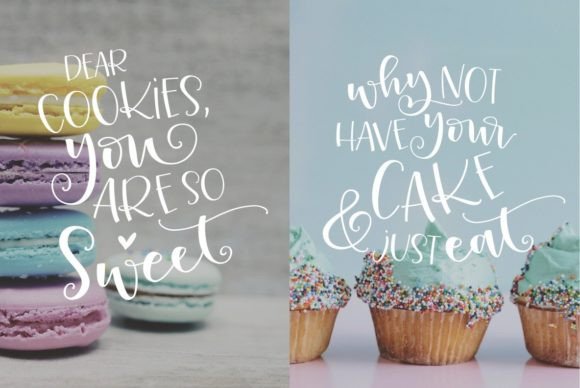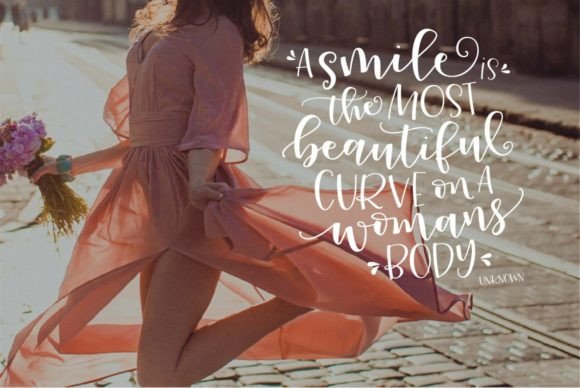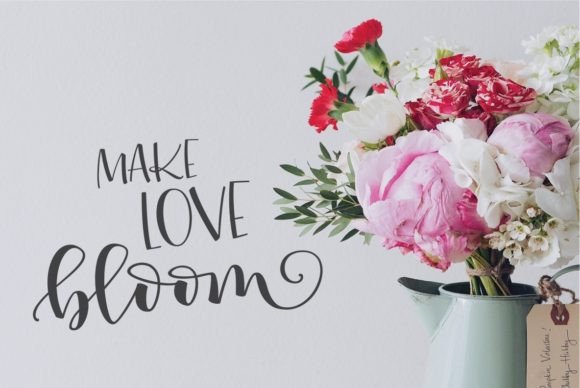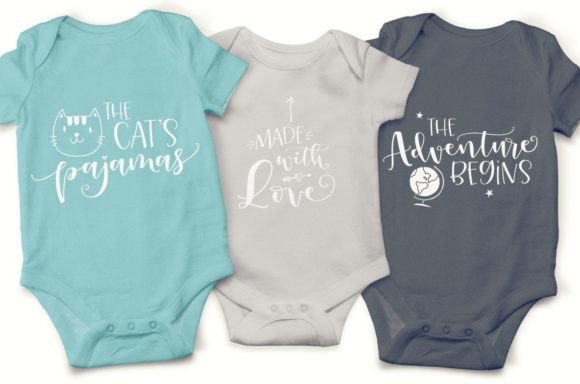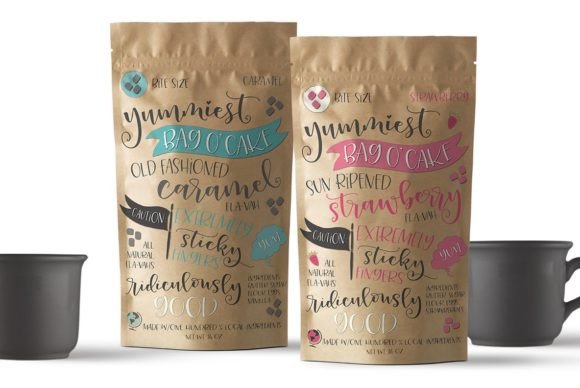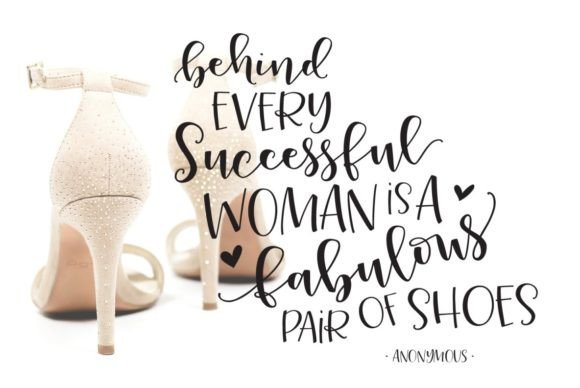
Peony Blooms Duo Font
A charming combination of a feminine, bouncy script paired with a playful hand-written sans. Use them best together or even on their own.
Everything you create will be a completely unique work of art. The combinations of short, long, and swirly swashes are endless!